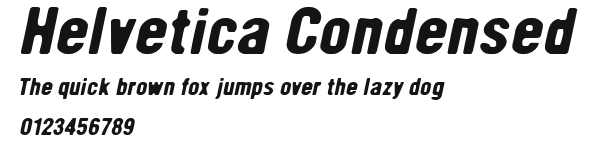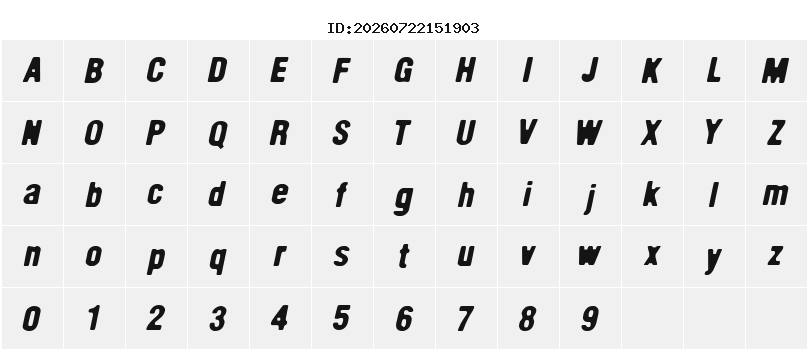
• Font Name: Helvetica Condensed
• Font Style: Destressed
• Full Font Name: Helvetica Condensed Destressed
About Helvetica Condensed.ttf
Helvetica Condensed.ttf is a modern, elegant sans-serif font designed for ultimate readability and visual harmony. Perfect for branding, headlines, web design, and print materials.